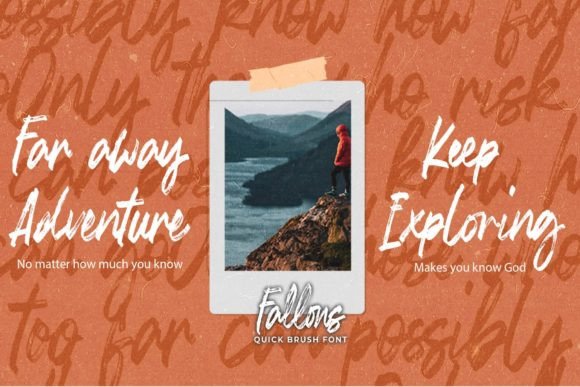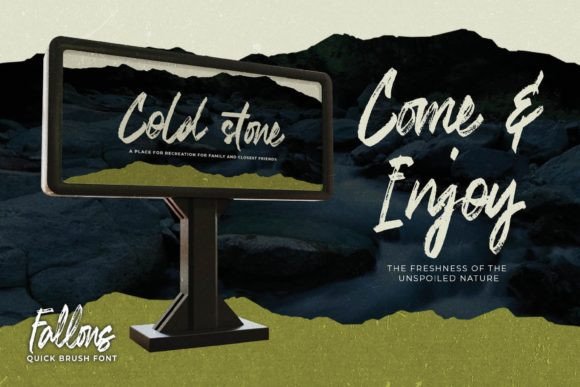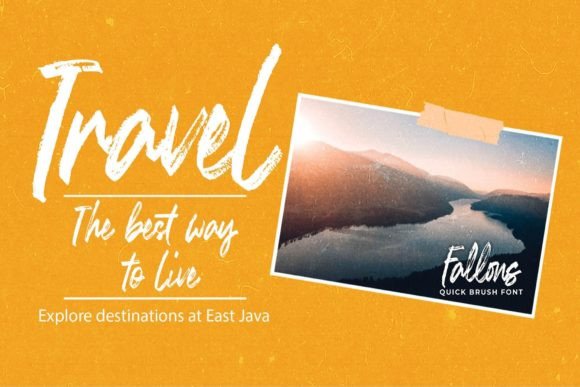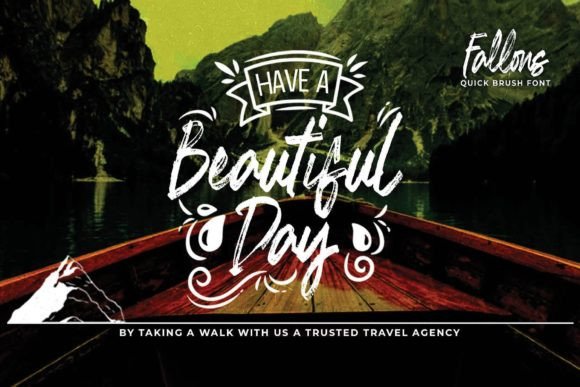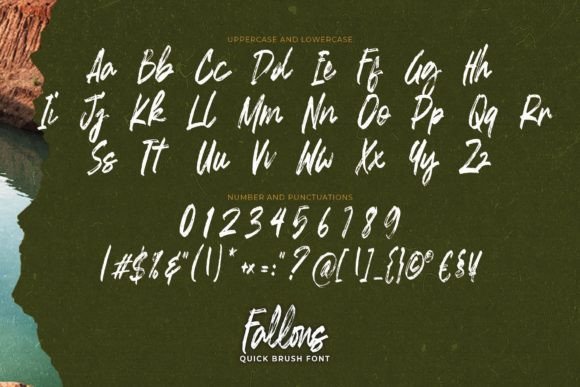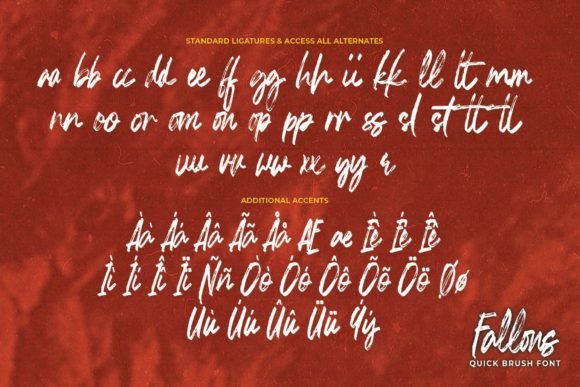
Introducing Fallons Font: A Quick Brush Handwritten Font
Are you looking for a font that can add a touch of elegance and sophistication to your creative projects? Look no further than Fallons Font, a quick brush handwritten font that is sure to impress. With its natural and classy style, Fallons is the perfect choice for designers and crafters who want to add a personal touch to their work.
What is Fallons Font?
Fallons is a quick brush handwritten font that is designed to mimic the look and feel of natural handwriting. With its clear style and dramatic movement, Fallons is a versatile font that can be used for a wide range of creative projects. Whether you’re looking to create a logo, printed quote, invitation, card, or product packaging, Fallons is the perfect choice.
Key Features of Fallons Font
So, what makes Fallons Font so special? Here are just a few of its key features:
- Natural and Classy Style: Fallons has a natural and classy style that is perfect for designers and crafters who want to add a touch of elegance to their work.
- Charming and Authentic Characters: Each character in Fallons is carefully crafted to be charming, authentic, and relaxed, giving your text a more natural look.
- Dramatic Movement: Fallons has a dramatic movement that adds a sense of energy and creativity to your text.
- Versatile: Fallons is a versatile font that can be used for a wide range of creative projects, from logos and branding to invitations and packaging.
Uses for Fallons Font
So, what can you use Fallons Font for? The possibilities are endless! Here are just a few ideas to get you started:
- Logos and Branding: Use Fallons to create a unique and memorable logo for your business or brand.
- Invitations and Cards: Add a personal touch to your invitations and cards with Fallons’ charming and authentic characters.
- Product Packaging: Use Fallons to add a touch of elegance to your product packaging and make your products stand out.
- Headers and Logotype: Use Fallons to create beautiful headers and logotypes for your website or social media channels.
- Letterheads and Stationery: Add a touch of sophistication to your letterheads and stationery with Fallons.
- Posters and Watermarks: Use Fallons to create eye-catching posters and watermarks for your photography or designs.
- Wedding Designs: Use Fallons to create beautiful wedding designs, such as invitations, programs, and place cards.
- Labels and Special Events: Use Fallons to create custom labels and designs for special events, such as conferences, festivals, or parties.
Why Choose Fallons Font?
So, why should you choose Fallons Font for your creative projects? Here are just a few reasons:
- Unique and Handwritten Style: Fallons has a unique and handwritten style that will set your work apart from the rest.
- Elegant and Sophisticated: Fallons is an elegant and sophisticated font that will add a touch of class to your work.
- Easy to Read: Despite its dramatic movement, Fallons is easy to read and understand, making it perfect for body text and headlines.
- High-Quality Design: Fallons is designed with high-quality craftsmanship in mind, ensuring that your work looks professional and polished.
In conclusion, Fallons Font is a quick brush handwritten font that is perfect for designers and crafters who want to add a touch of elegance and sophistication to their creative projects. With its natural and classy style, charming and authentic characters, and dramatic movement, Fallons is a versatile font that can be used for a wide range of applications. Whether you’re looking to create a logo, invitation, product packaging, or wedding design, Fallons is the perfect choice. So why wait? Download Fallons Font today and start creating beautiful, hand-written designs that will set your work apart from the rest!